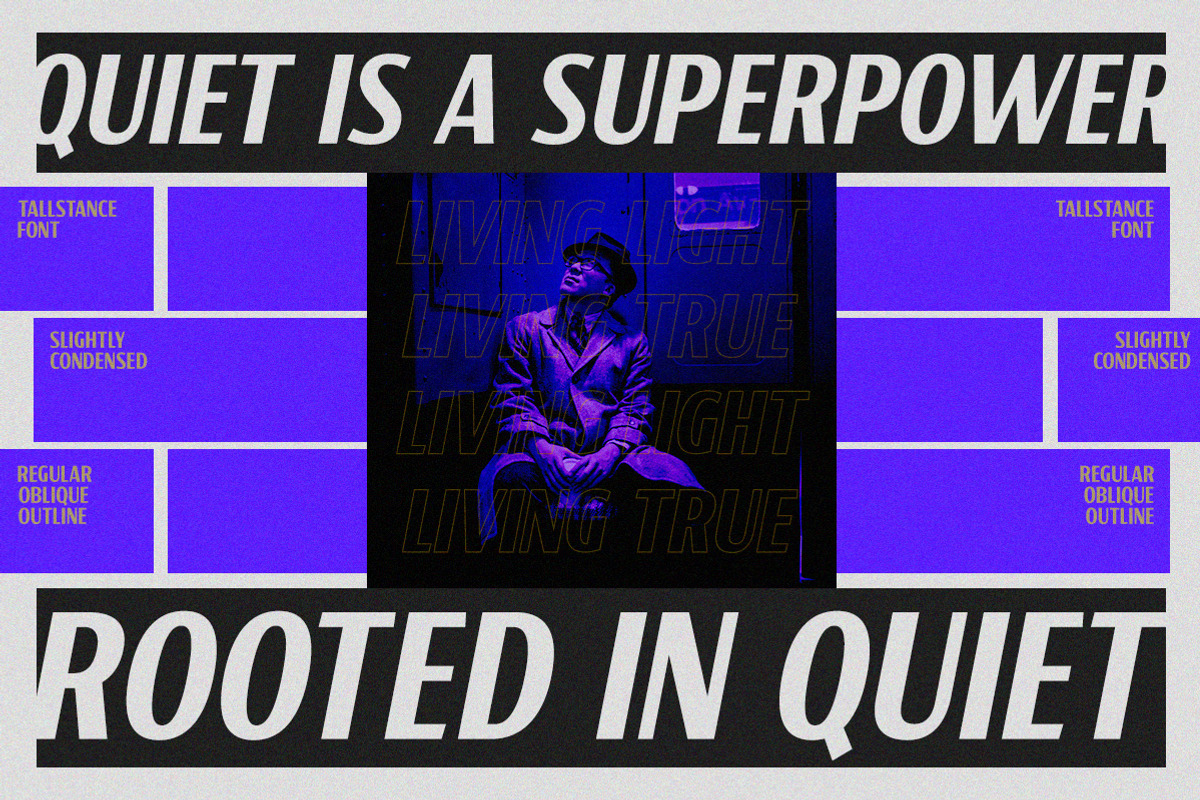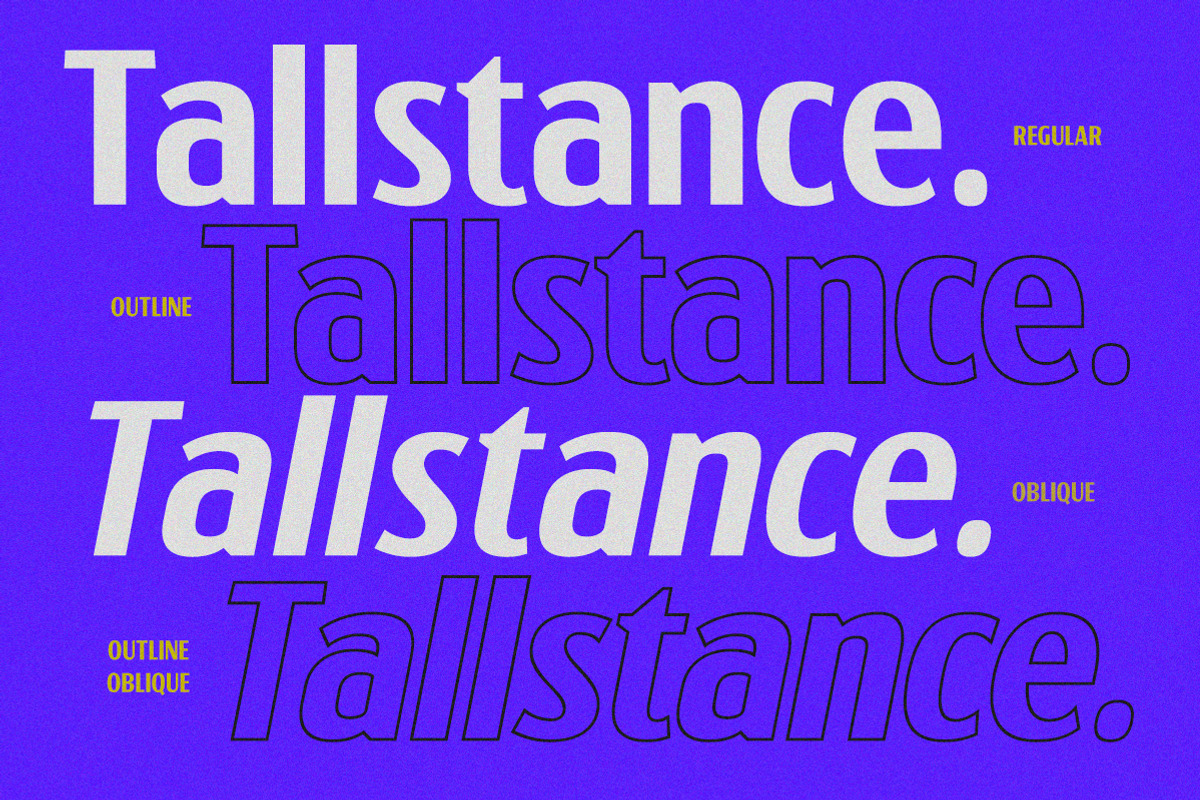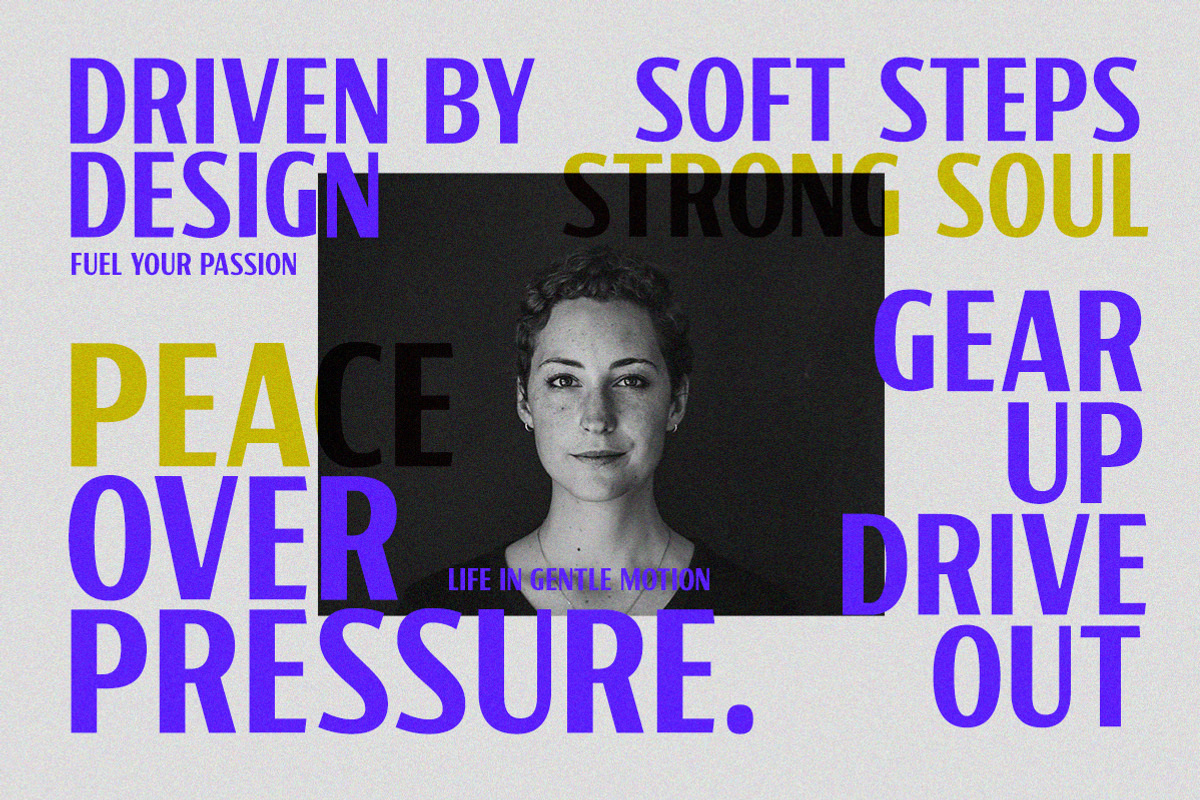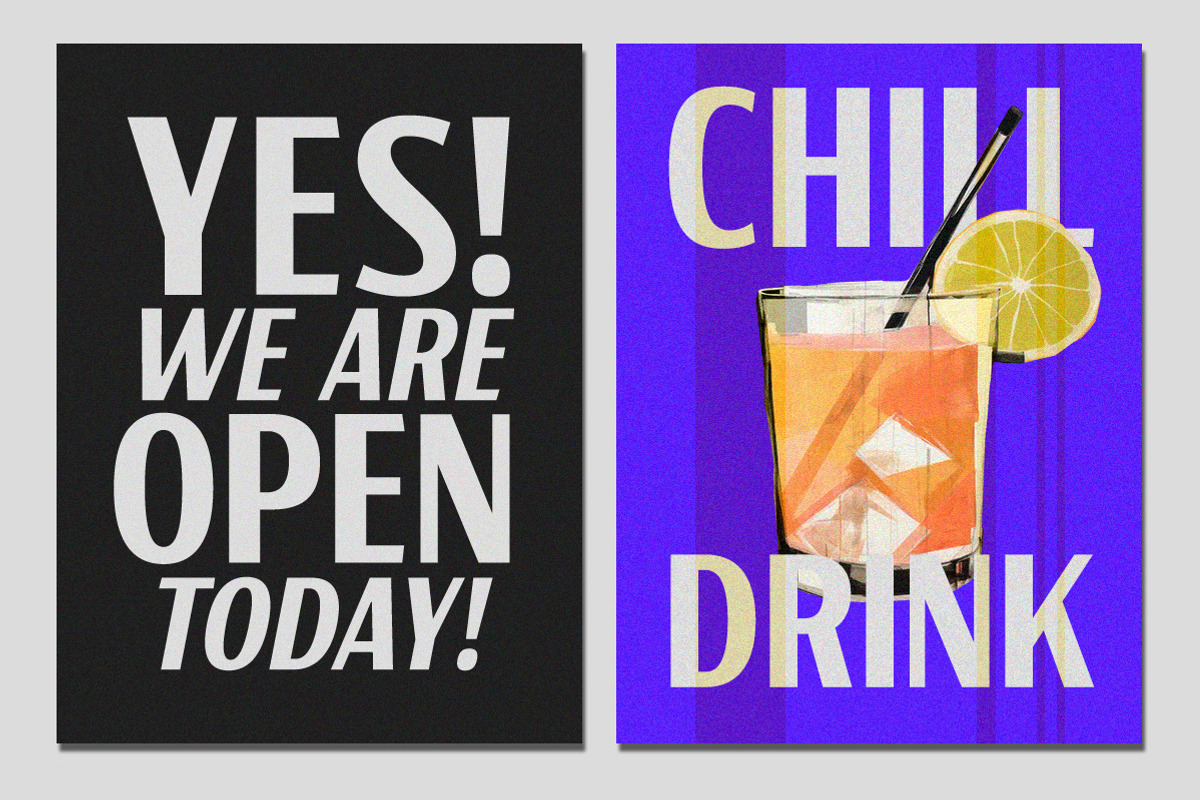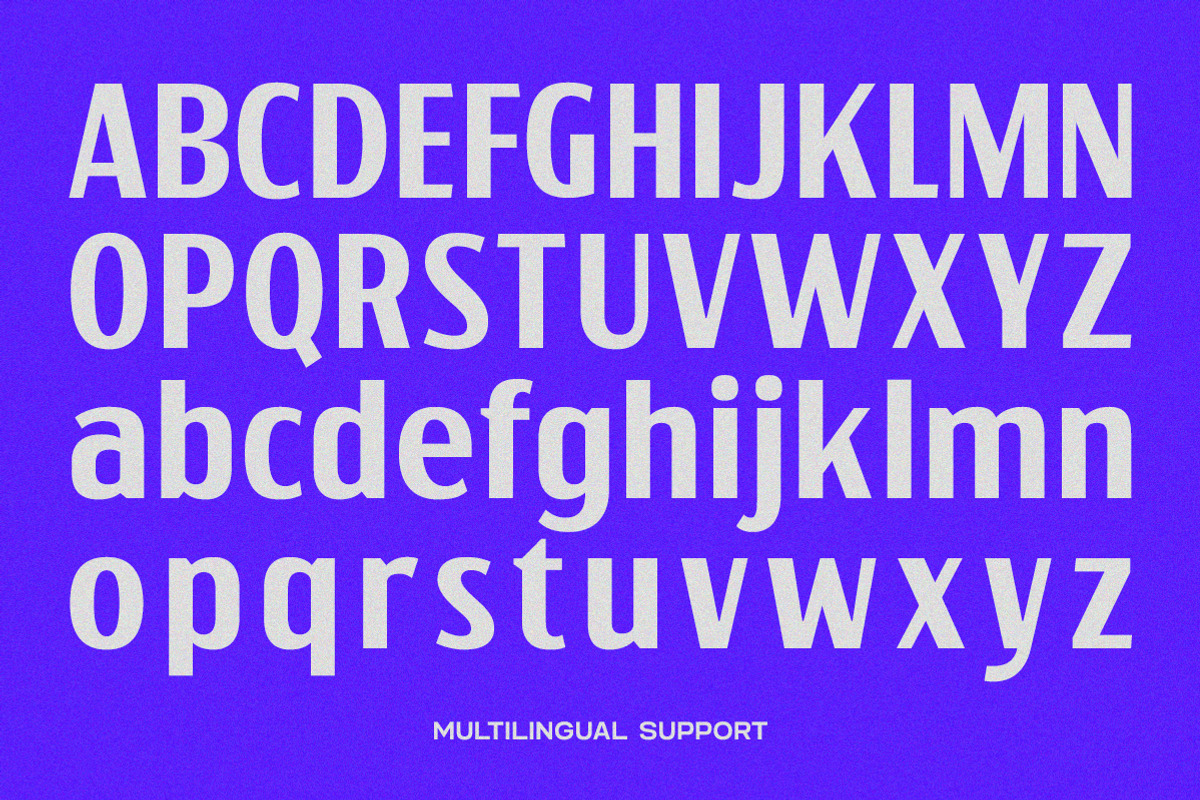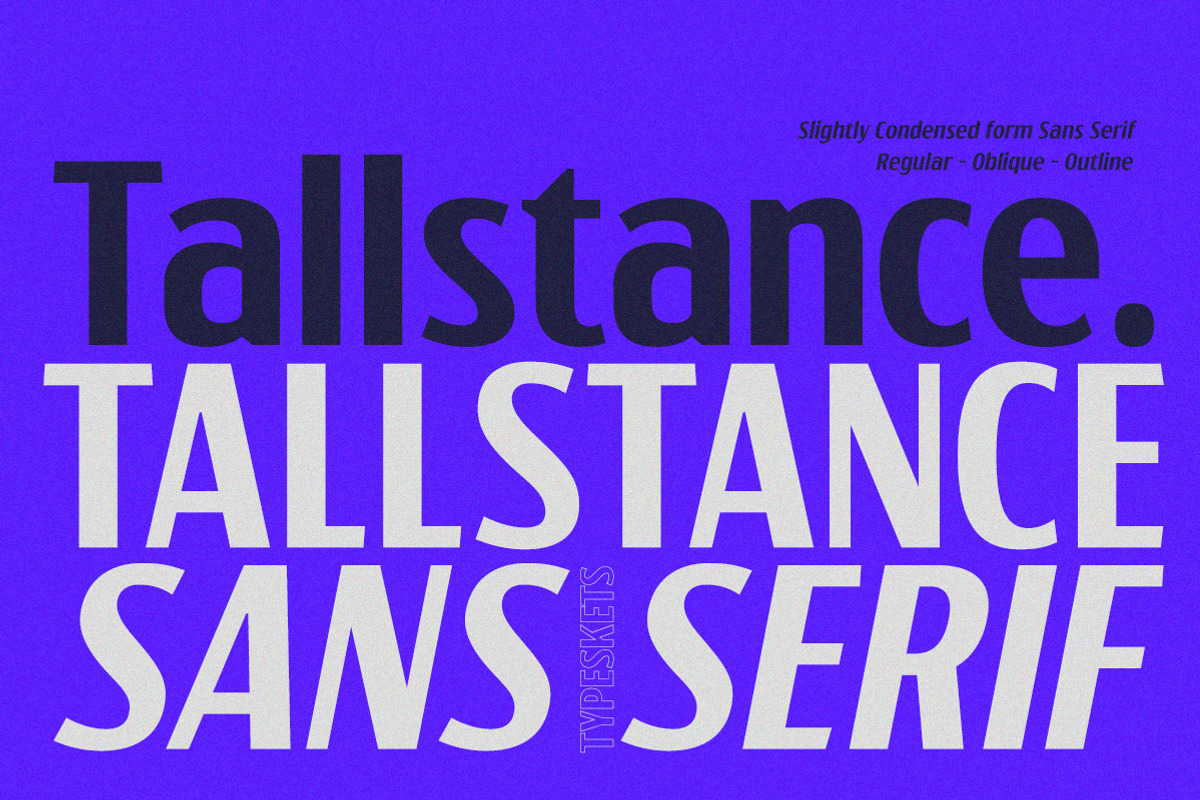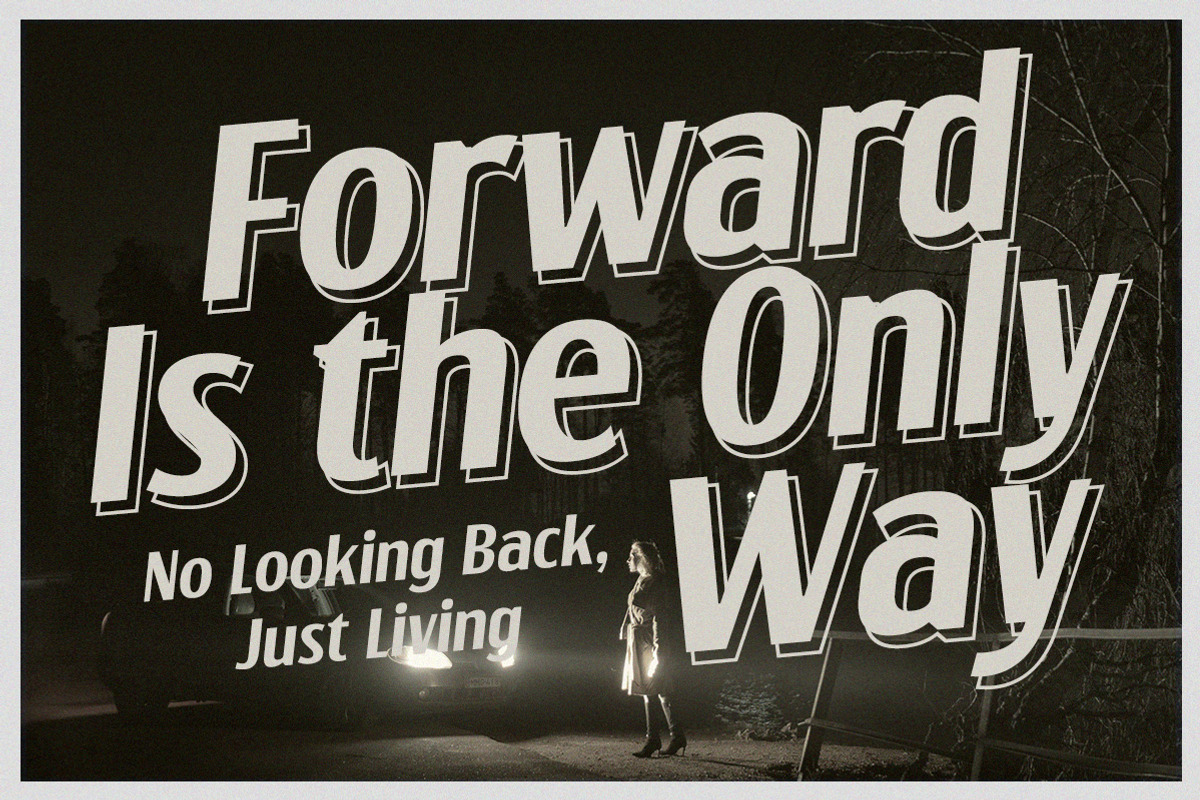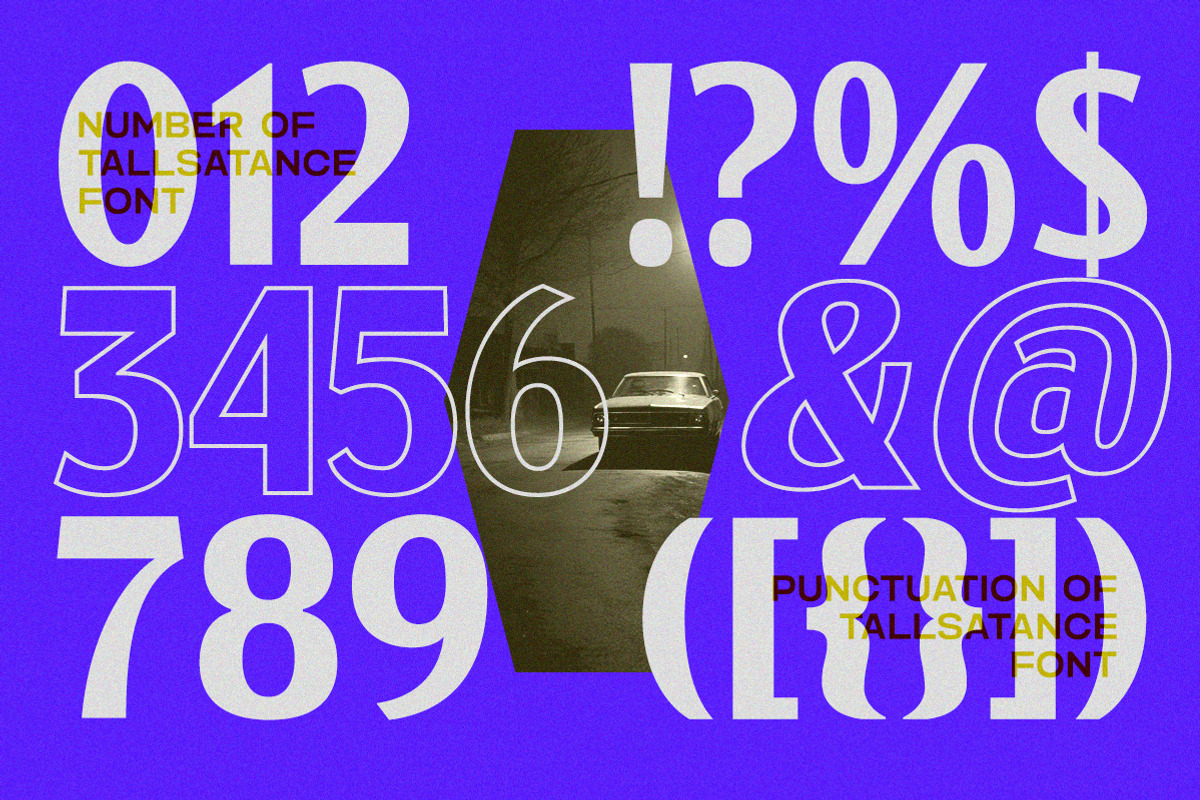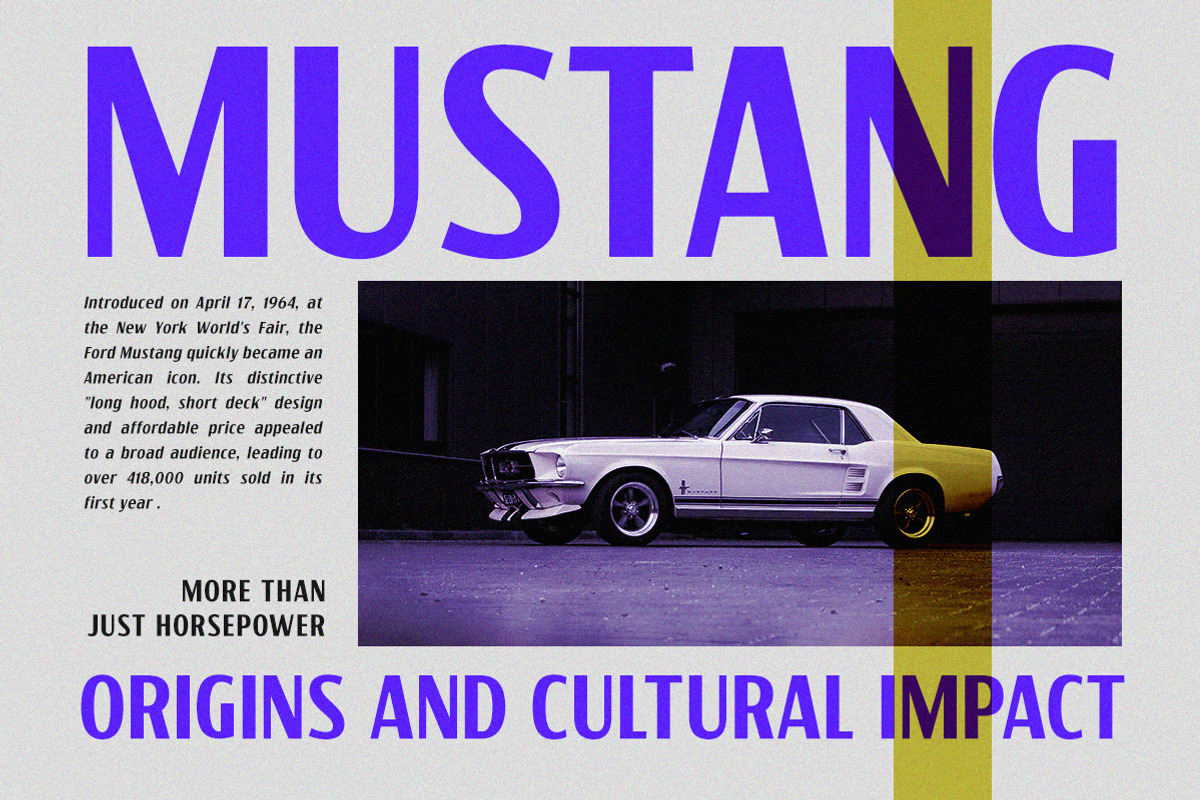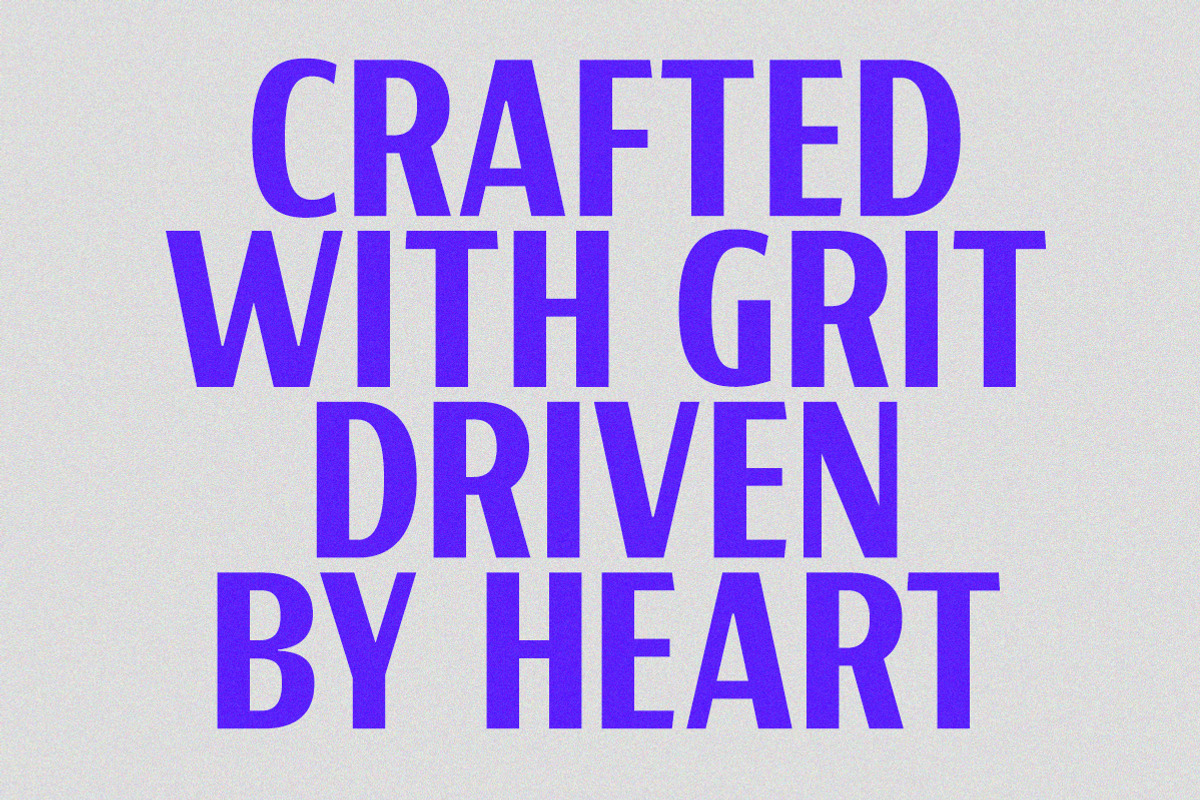
Tallstance - Condensed Sans Serif
Tallstance is a slightly condensed sans-serif font designed for bold presence and clean modern appeal. With its tall letterforms and minimalist curves, it delivers a strong vertical rhythm that’s perfect for editorial headlines, posters, logo design, and branding materials.
Available in three versatile styles — Regular, Oblique, and Outline — Tallstance gives you the flexibility to create striking typographic contrasts while maintaining consistency across styles.
Whether you're crafting futuristic branding, bold magazine layouts, or clean user interfaces, Tallstance will elevate your designs with style and clarity.